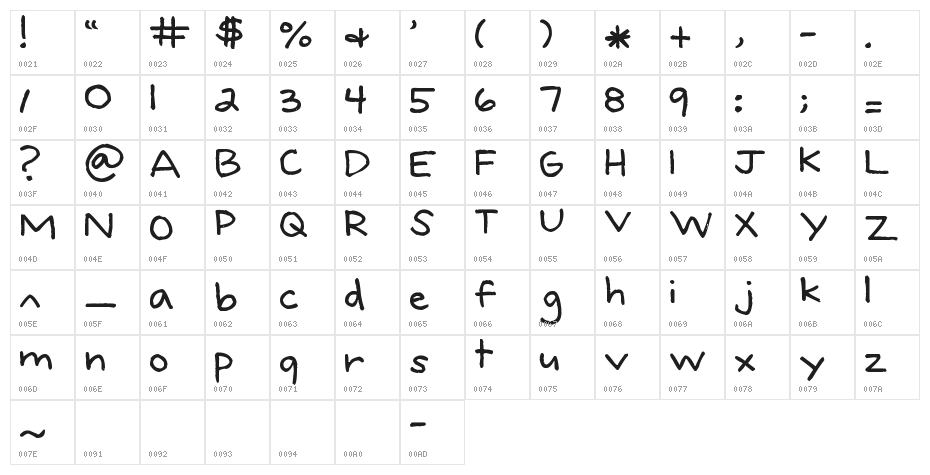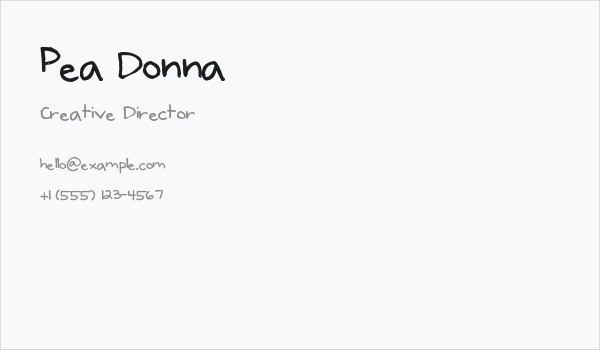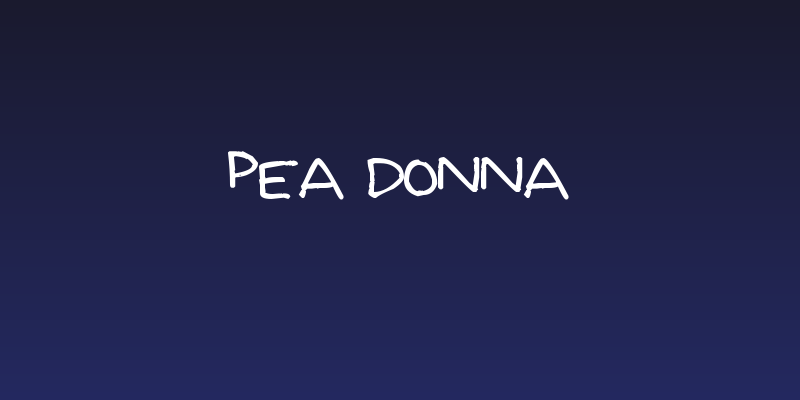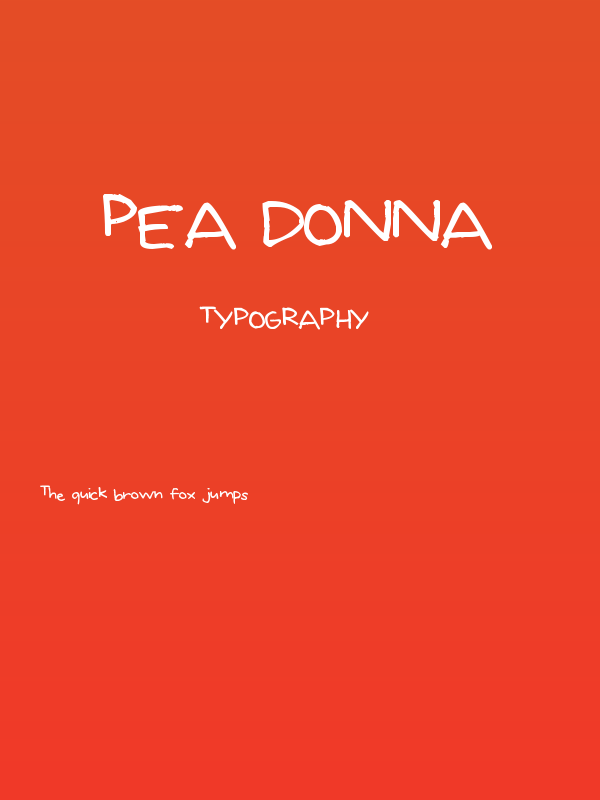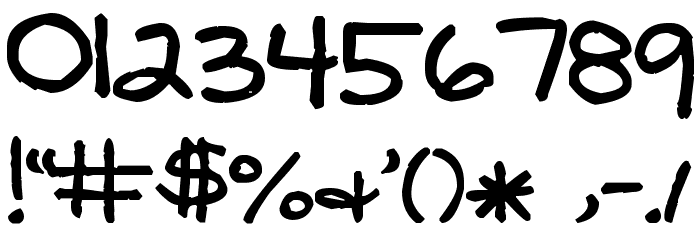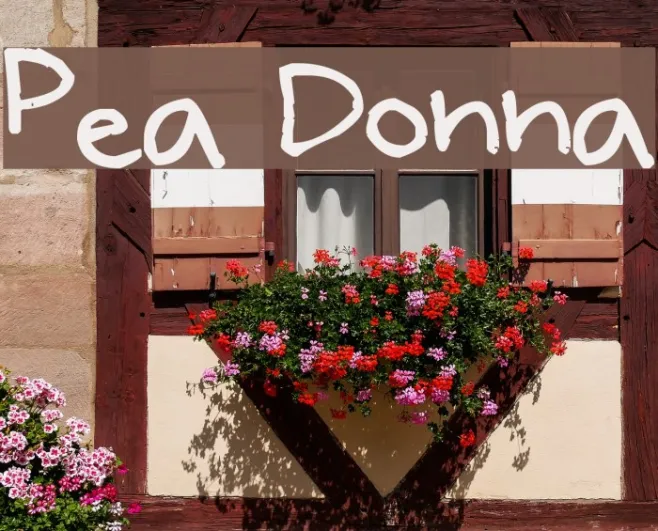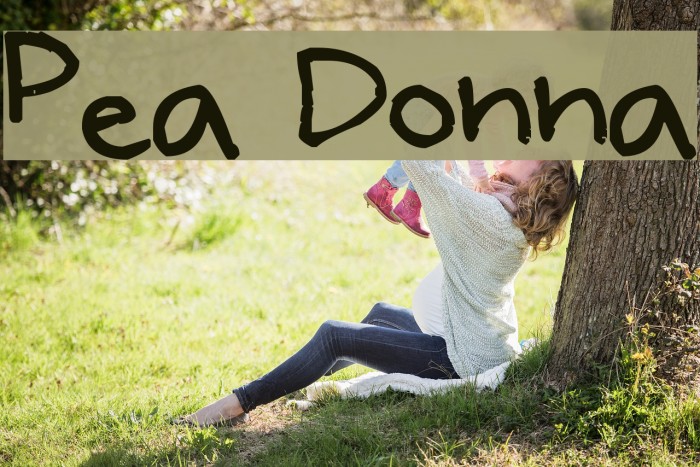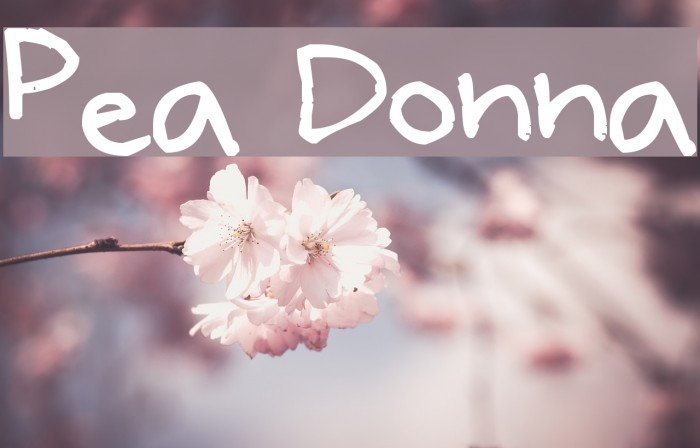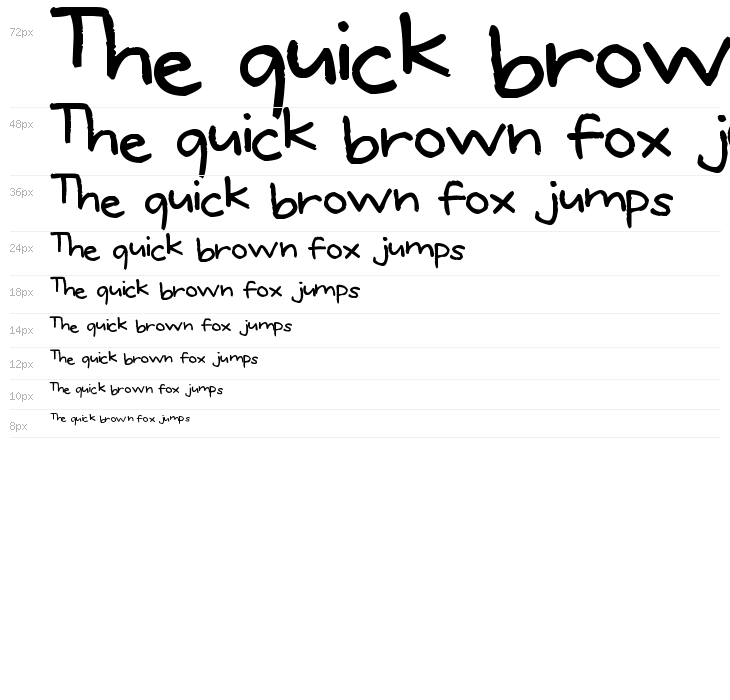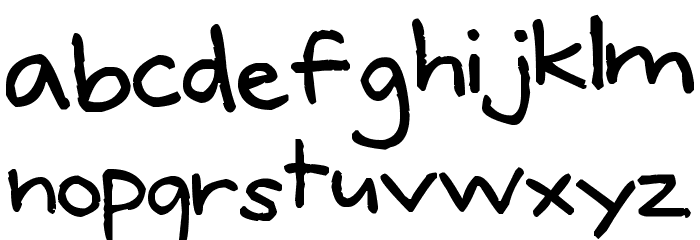
Pea Donna Font
Pea Donna Description
This font exudes a playful and informal vibe, characterized by its handwritten style. The letters are slightly irregular, mimicking the natural flow of handwriting, which adds a personal touch to any design. The strokes are bold and consistent, providing a clear and legible appearance. This font is versatile, suitable for projects that require a casual and friendly tone. The numbers and special characters maintain the same playful style, ensuring consistency across all text elements.
| Proposed Projects | Ideal for greeting cards, children's books, informal invitations, and playful branding. |